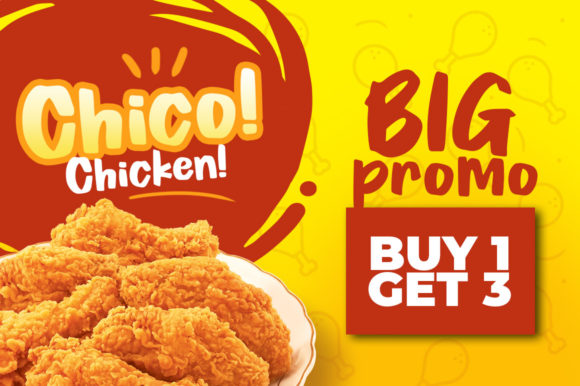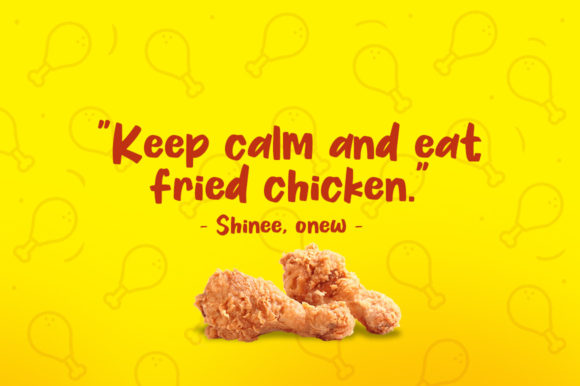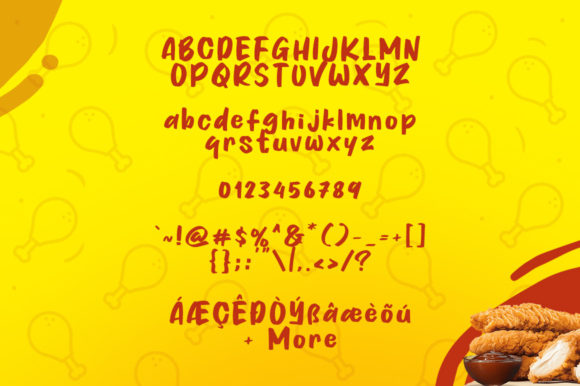
Fried Chicken Font: The Perfect Addition to Your Design Arsenal
Are you tired of using the same old fonts in your designs? Look no further than the Fried Chicken Font, a fun, retro-styled, and cool display font that’s sure to add a lovely touch to any creation. In this article, we’ll dive into the world of Fried Chicken Font, exploring its features, uses, and benefits for designers and crafters.
What is Fried Chicken Font?
Fried Chicken Font is a unique and eye-catching display font that’s perfect for adding a playful and whimsical touch to your designs. With its retro-style charm and fun aesthetic, this font is ideal for cartoon-related designs, children’s games, and any other creation that requires a dash of personality.
Key Features of Fried Chicken Font
- Retro-style charm: Fried Chicken Font boasts a distinctive retro vibe that’s sure to transport your designs back to a bygone era.
- Fun and playful aesthetic: This font is perfect for adding a dash of whimsy and playfulness to your designs, making it ideal for children’s games, cartoons, and other fun-related projects.
- High-quality design: Fried Chicken Font is meticulously crafted to ensure that it looks great in any design, from digital projects to print materials.
- Easily readable: Despite its playful nature, Fried Chicken Font is surprisingly easy to read, making it perfect for use in a variety of design applications.
Uses of Fried Chicken Font
Fried Chicken Font is an incredibly versatile font that can be used in a wide range of design applications, including:
- Cartoon-related designs: Add a fun and playful touch to your cartoon characters, titles, and descriptions with Fried Chicken Font.
- Children’s games: Create engaging and interactive games for kids with Fried Chicken Font, perfect for titles, buttons, and other game elements.
- Branding and advertising: Use Fried Chicken Font to add a dash of personality to your brand or product, creating eye-catching ads and promotional materials.
- Digital and print materials: Fried Chicken Font is perfect for use in a variety of digital and print materials, including posters, flyers, brochures, and more.
Benefits of Using Fried Chicken Font
So why choose Fried Chicken Font for your next design project? Here are just a few benefits of using this amazing font:
- Adds personality to your designs: Fried Chicken Font is the perfect way to inject some personality and whimsy into your designs, setting them apart from the crowd.
- Increases engagement: The fun and playful aesthetic of Fried Chicken Font is sure to capture the attention of your audience, increasing engagement and interaction with your designs.
- Versatile and flexible: Fried Chicken Font can be used in a wide range of design applications, making it a valuable addition to your font library.
- Easy to use: Fried Chicken Font is surprisingly easy to use, even for designers who are new to working with fonts.
Tips for Using Fried Chicken Font
To get the most out of Fried Chicken Font, here are a few tips to keep in mind:
- Use it sparingly: Fried Chicken Font is a bold and eye-catching font, so use it sparingly to avoid overwhelming your designs.
- Pair it with complementary fonts: Combine Fried Chicken Font with complementary fonts to create a visually appealing and harmonious design.
- Experiment with colors and textures: Fried Chicken Font looks great in a variety of colors and textures, so don’t be afraid to experiment and find the perfect combination for your design.
| Font Name | Fried Chicken Font |
| Author | si.jalembe |
In conclusion, Fried Chicken Font is a fun, retro-styled, and cool display font that’s perfect for adding a lovely touch to any design. With its versatile and flexible design, this font is ideal for use in a wide range of applications, from cartoon-related designs to branding and advertising. So why not give Fried Chicken Font a try and see the difference it can make in your designs?